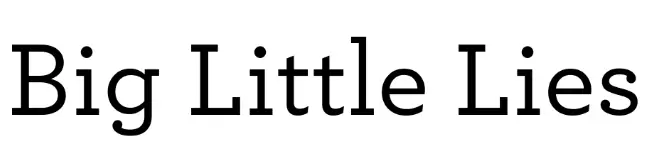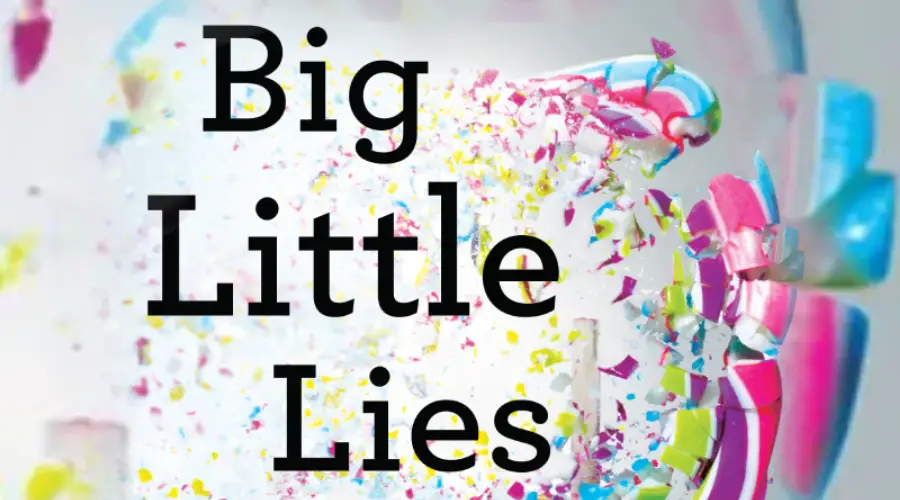
The Big Little Lies Font is a sophisticated and elegant typeface used in the title design of Big Little Lies, the bestselling novel by Liane Moriarty (2014) and its HBO TV adaptation (2017). The original font used for the book cover and promotional materials is Archer Medium, a refined slab-serif typeface designed by Tobias Frere-Jones and Jonathan Hoefler in 2001 for Martha Stewart Living magazine.
Archer Medium by Hoefler & Co. The original font used in Big Little Lies.